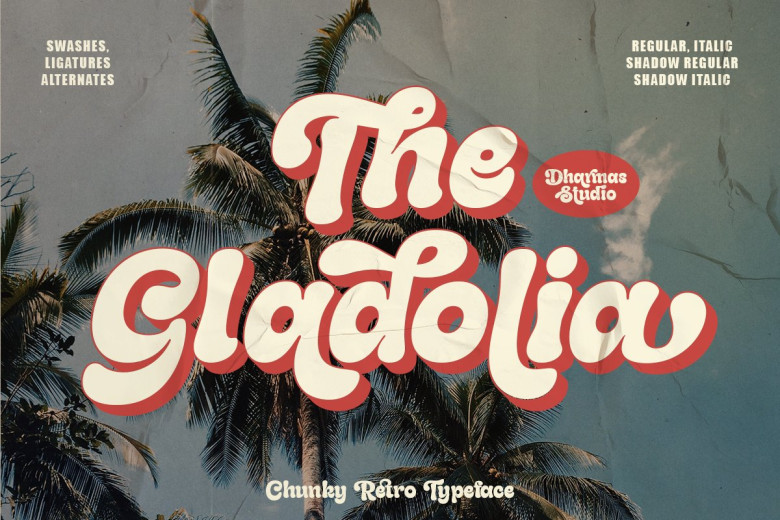
Gladolia Font
Gladolia is a chunky display font with a charming retro style that is sure to give your designs real character. With two completely separate style fonts — regular and oblique — as well as an additional Extruded Font version in each style, this font offers an intuitive way to make your designs stand out.
This font is perfect for an 80s retro feel to the magazine cover, brochure, logo, or article page front-page headline quotational typography, etc. Each member of the family is assertive and dynamic in its own right-namely: it makes for a display typeface that can be used on any project at all!
Gladolia Display Font